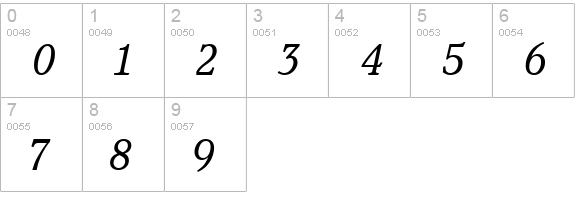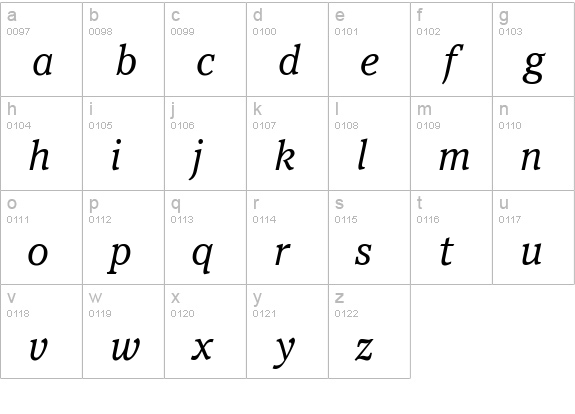
Pacella Italic is a distinctive, italic variant in the Pacella typeface family \xE2\x80\x94 well suited to design and typography projects.
Pacella Italic is a stunning and elegant font that exudes sophistication and style. With its graceful curves and delicate strokes, this font is perfect for adding a touch of class to any design project. Whether you're designing a wedding invitation, a logo for a high-end brand, or a stylish website, Pacella Italic will elevate your design to new heights. What sets Pacella Italic apart is not just its visual appeal, but also its versatility. This font can effortlessly adapt to various design styles, from traditional to modern, making it a valuable asset for any designer. Its refined and timeless aesthetic ensures that your designs will remain relevant and eye-catching for years to come. But what makes Pacella Italic even more special is that it is free. That's right, you can download this exceptional font for absolutely no cost at FontsMarket.com. We believe that great design should be accessible to everyone, and by offering Pacella Italic for free, we are enabling designers of all levels to create beautiful and impactful designs without any financial barriers. So, whether you're a professional designer looking to add a touch of elegance to your portfolio or a beginner exploring the world of design, Pacella Italic is the perfect font for you. Download it today from FontsMarket.com and unlock the potential to create stunning and captivating designs that will leave a lasting impression.